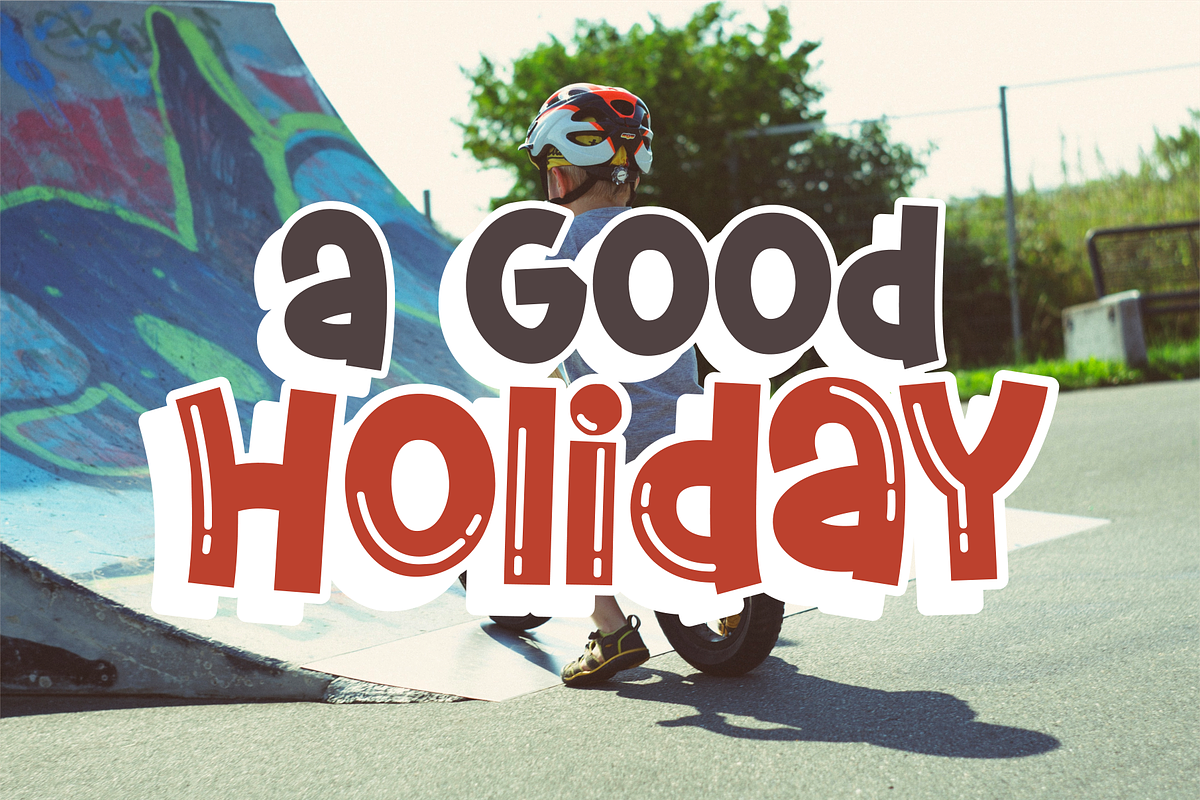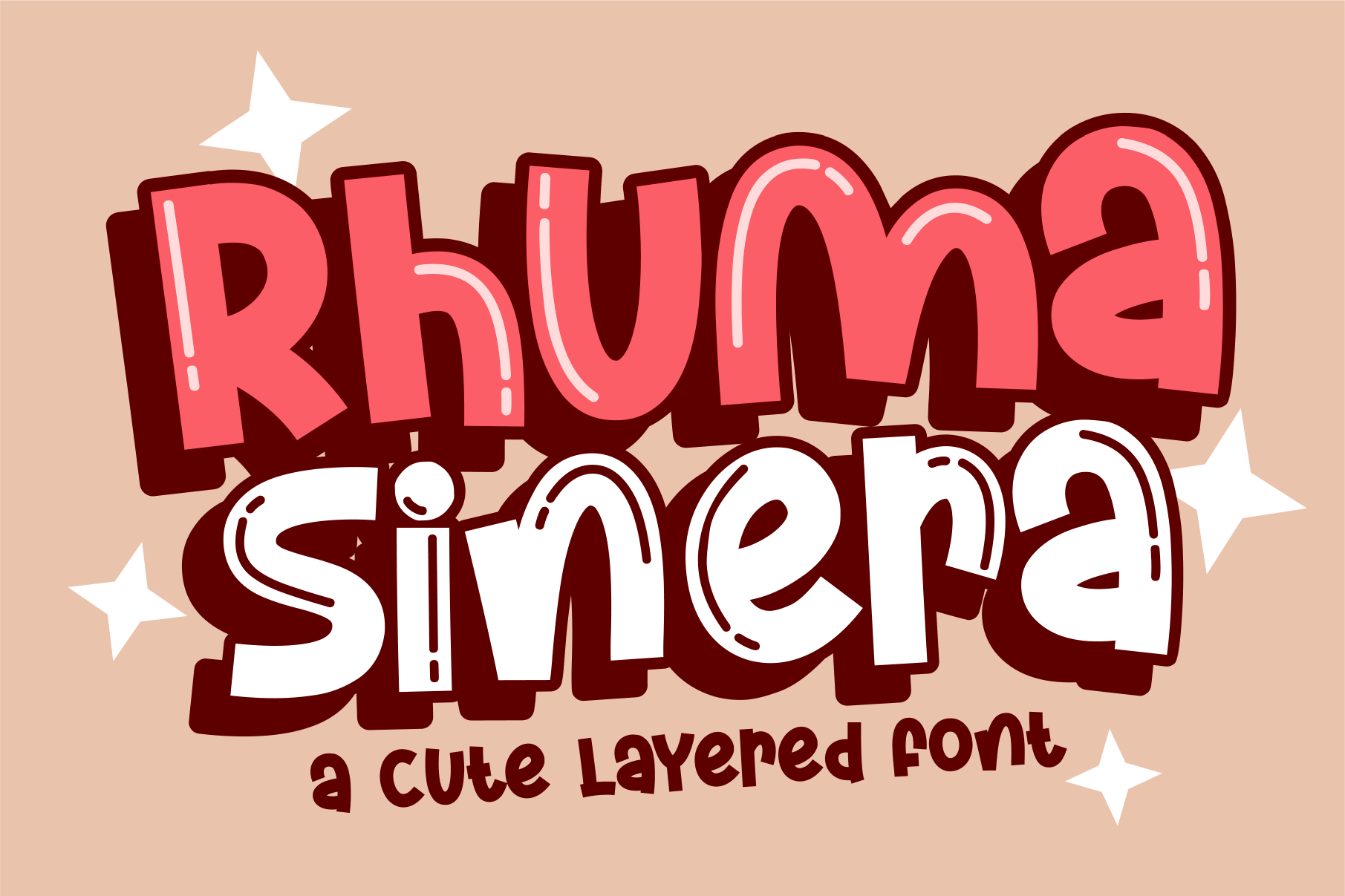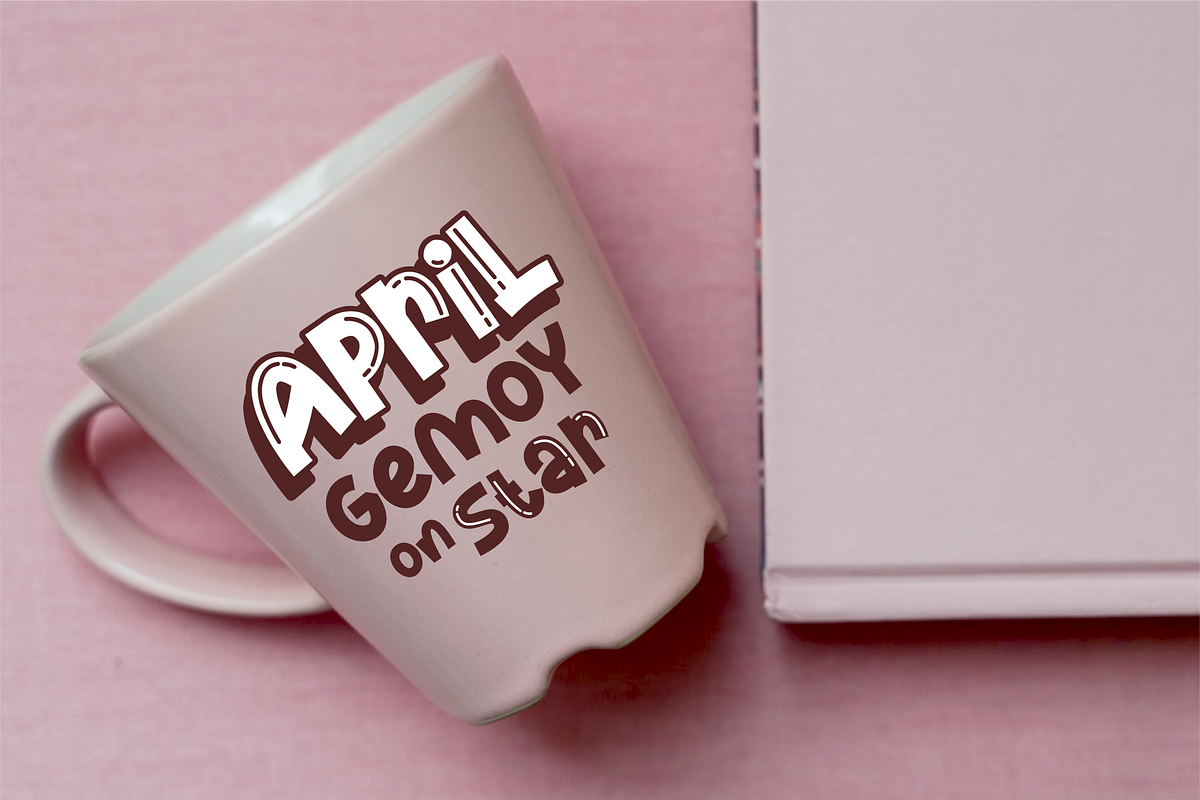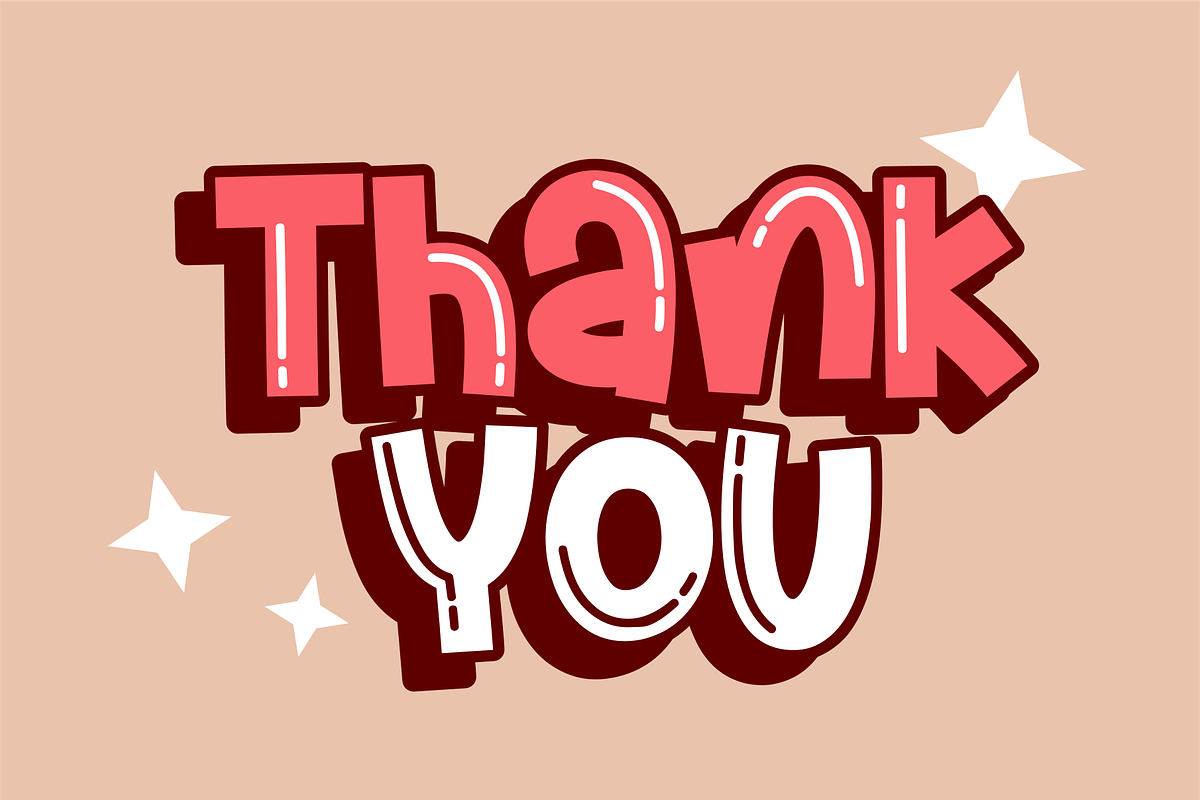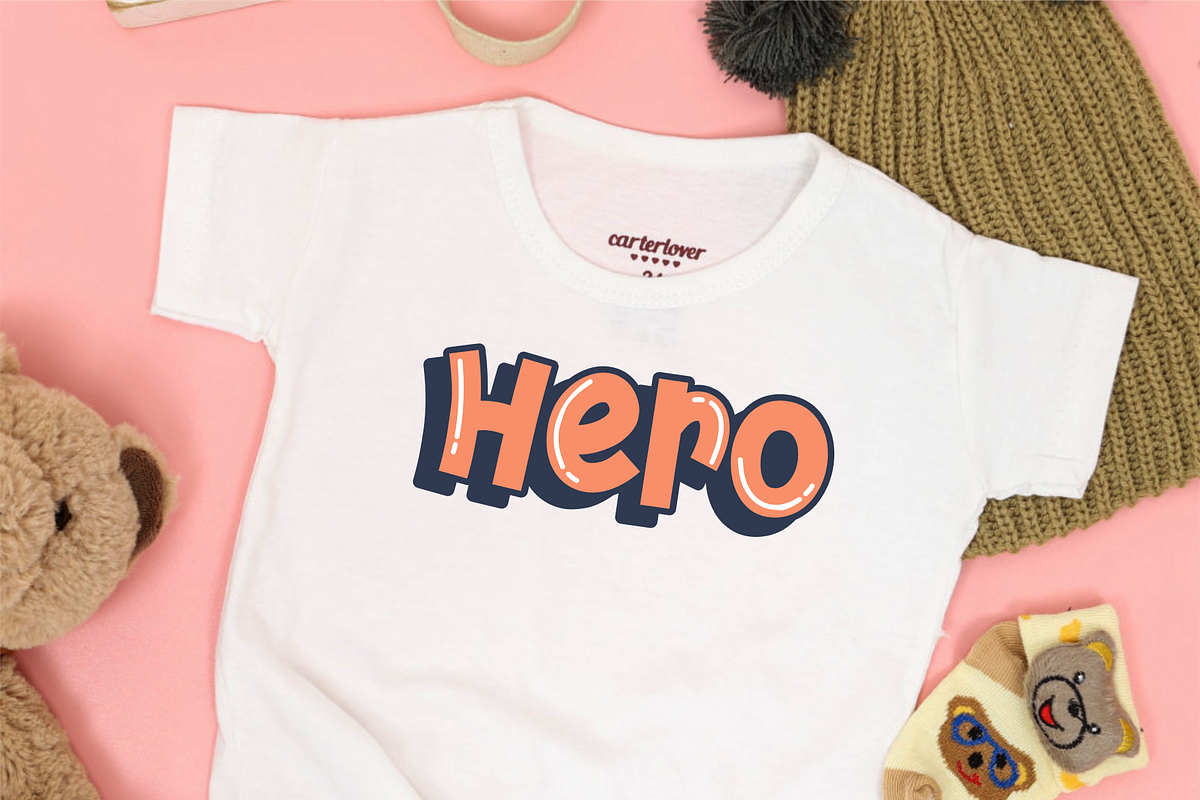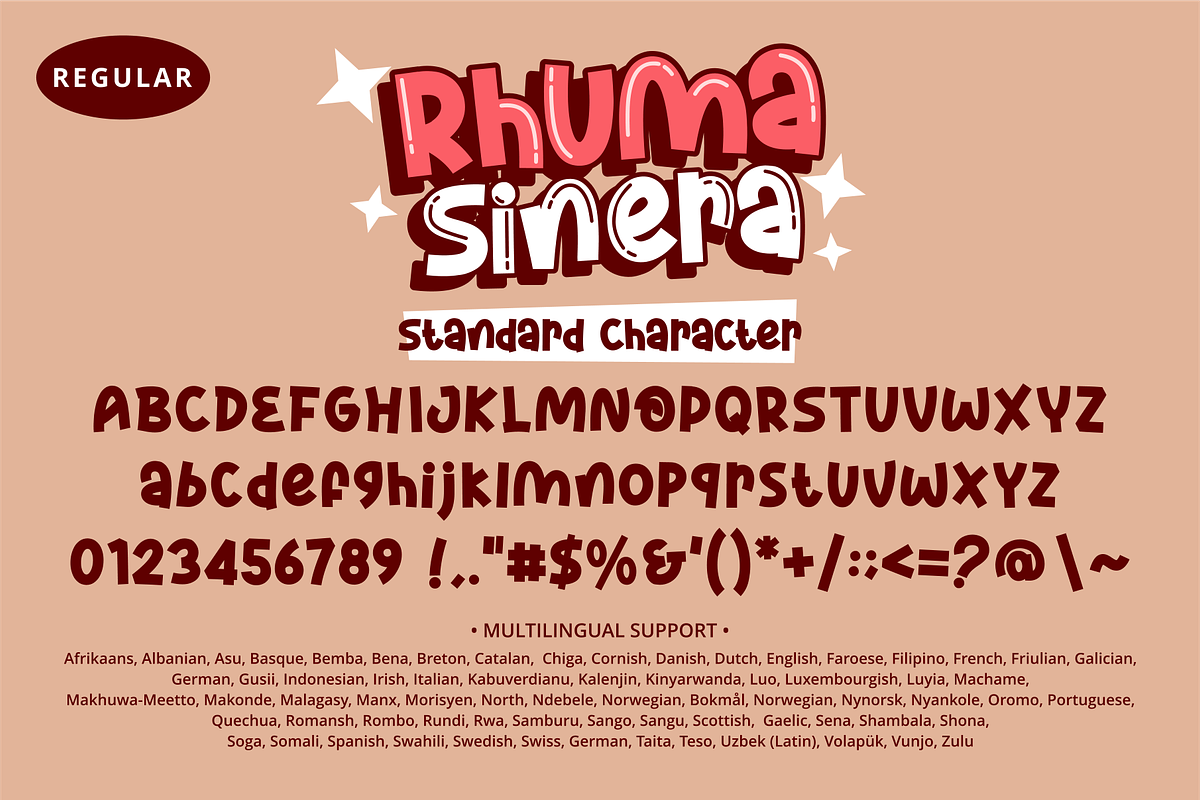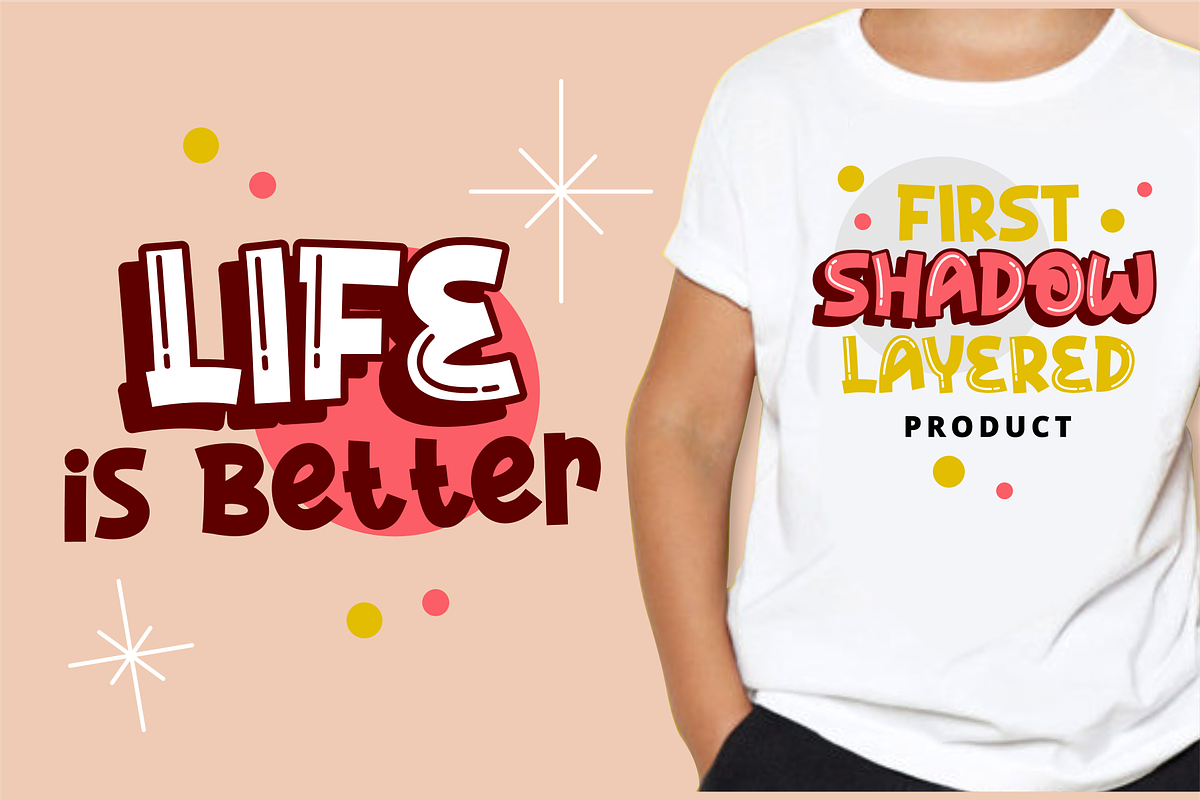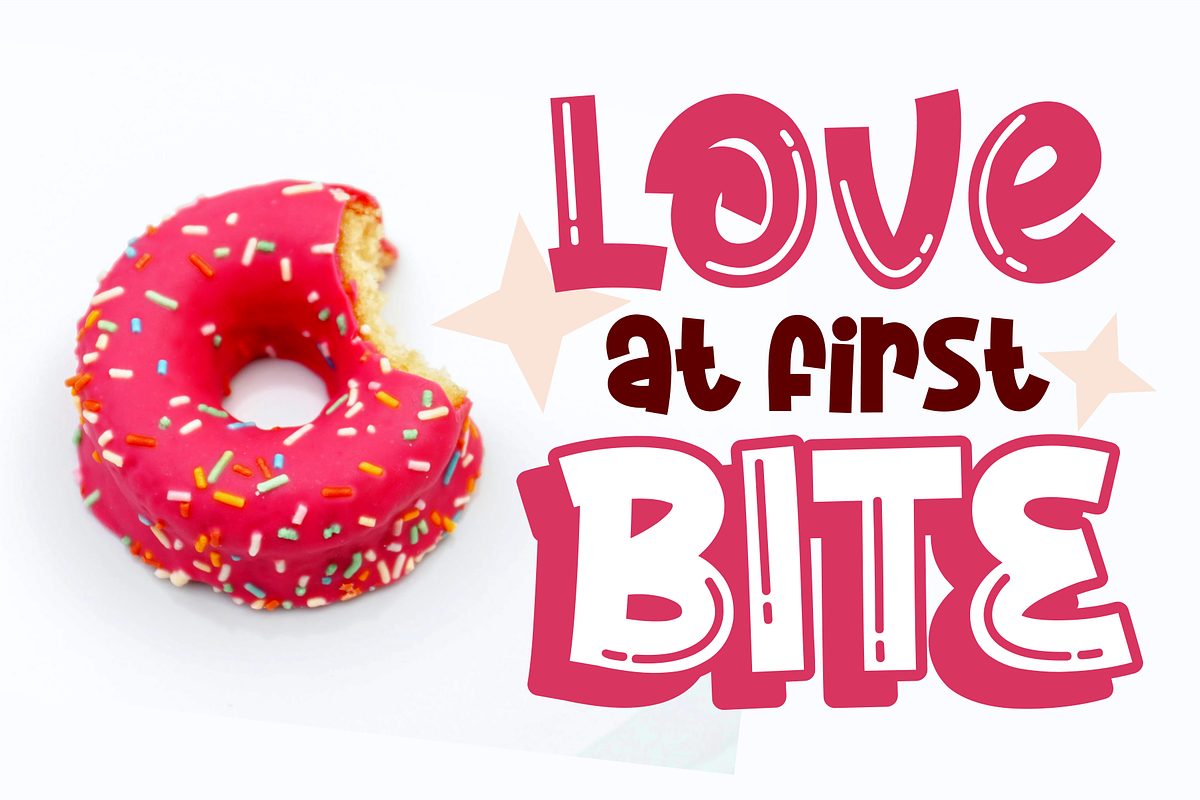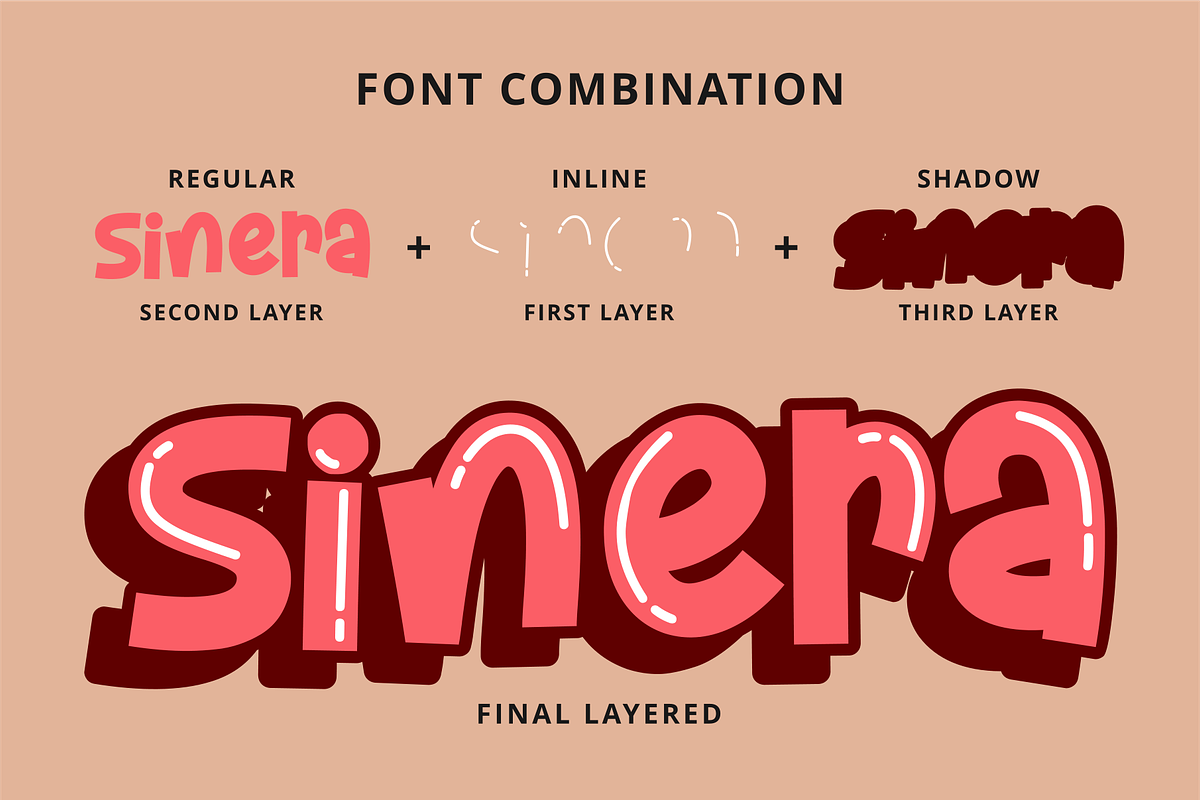
Rhuma Sinera Font
Rhuma Sinera is a cool and friendly display font. Whether you are using it for cartoon-related designs, children’s games, quotes, titles, brand names, book covers, posters, or just any creation that requires a touch of joy, this font is a great choice.